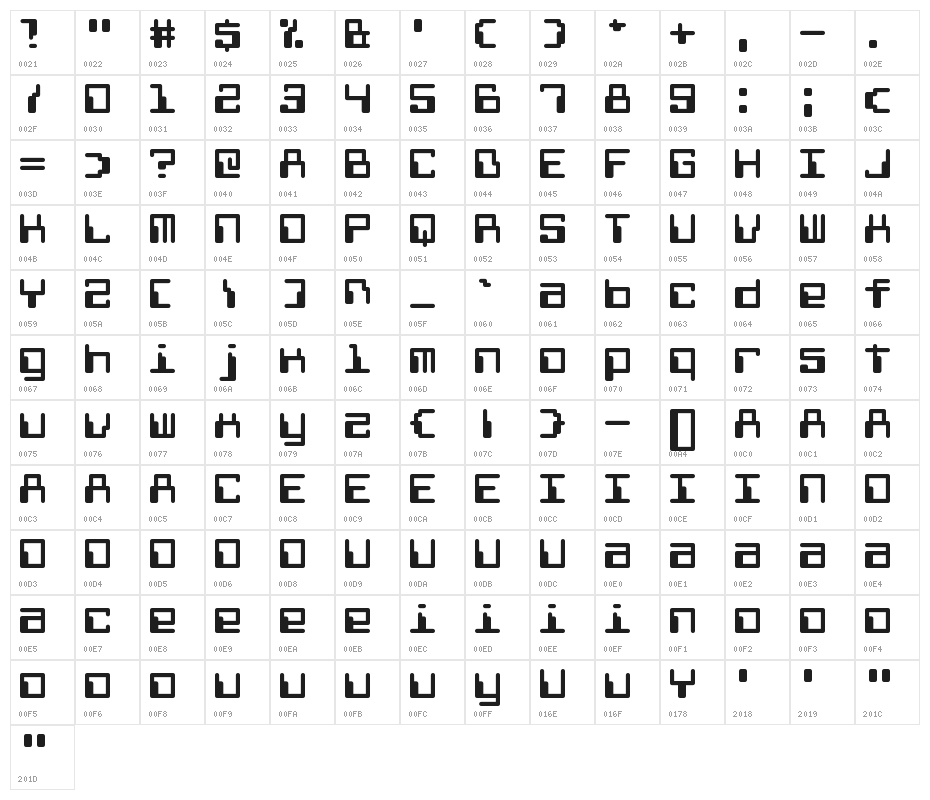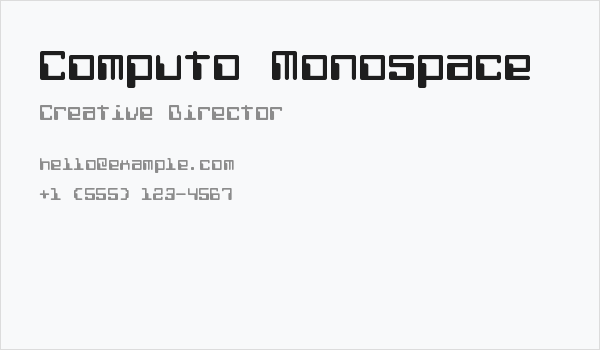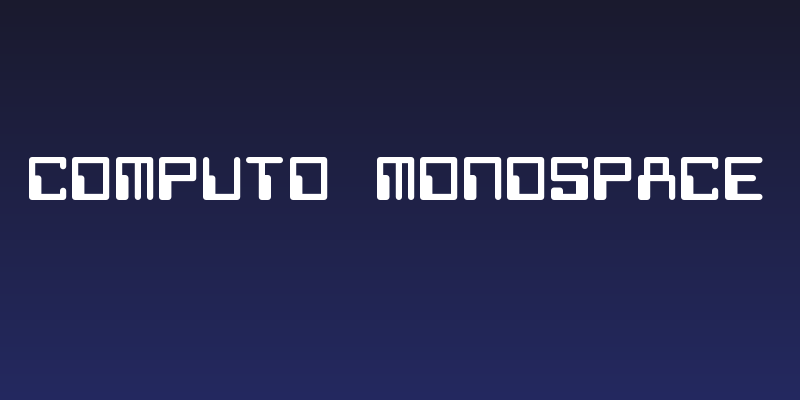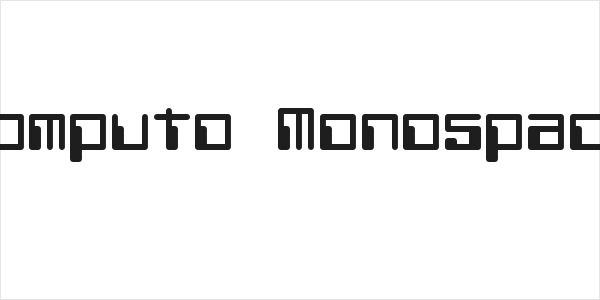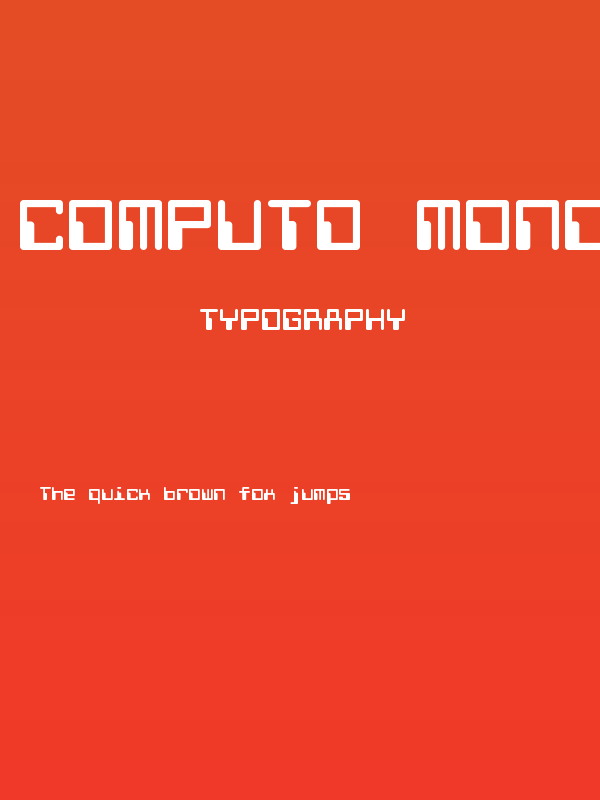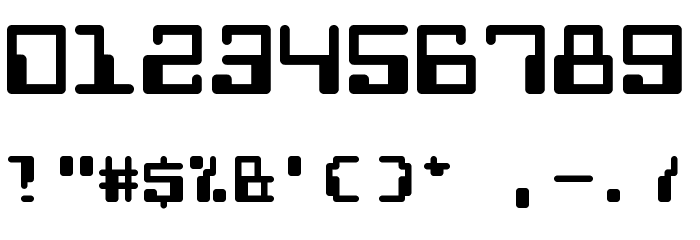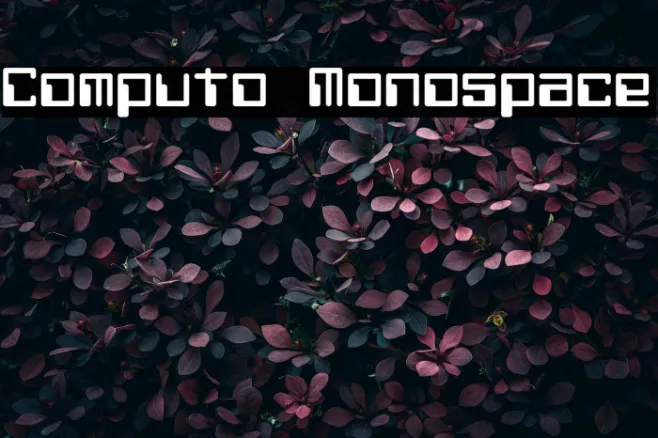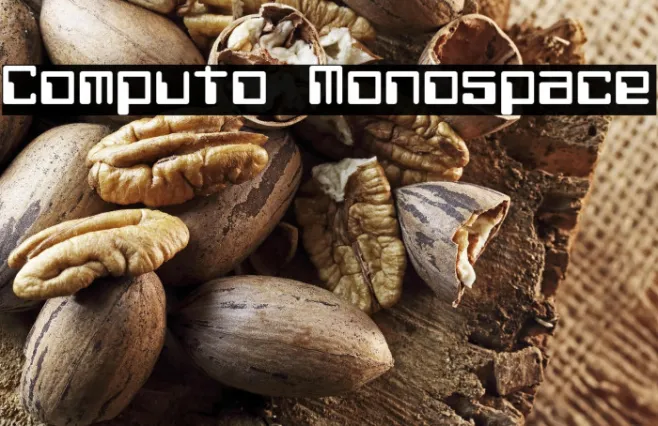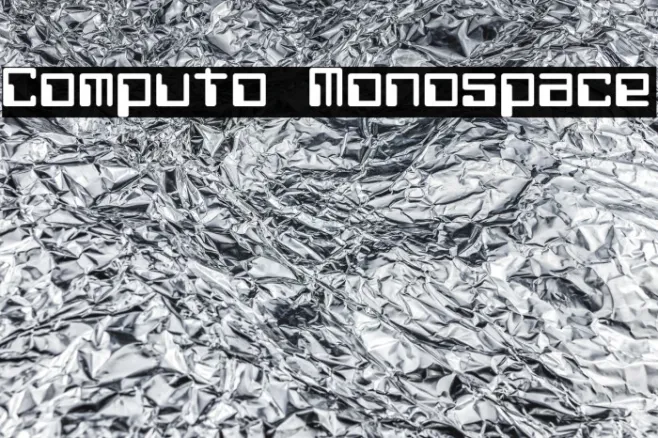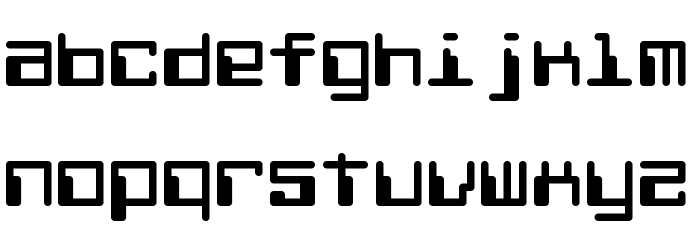
Computo Monospace Font
Computo Monospace Description
This font features a distinct monospaced design with a futuristic and digital aesthetic. Each character is uniformly spaced, providing a clean and organized appearance. The characters have a blocky, geometric form with rounded edges, giving it a modern yet slightly retro feel. The uppercase and lowercase letters maintain a consistent height, enhancing readability and uniformity. The numerals and special characters are designed to match the overall style, ensuring a cohesive look across all text. This font is ideal for coding, technical documents, or any project requiring a structured and contemporary typeface.
| Use Case | Coding, Technical documents, Digital displays |
| Proposed Projects | Ideal for coding interfaces, technical documents, digital displays, and modern branding. |